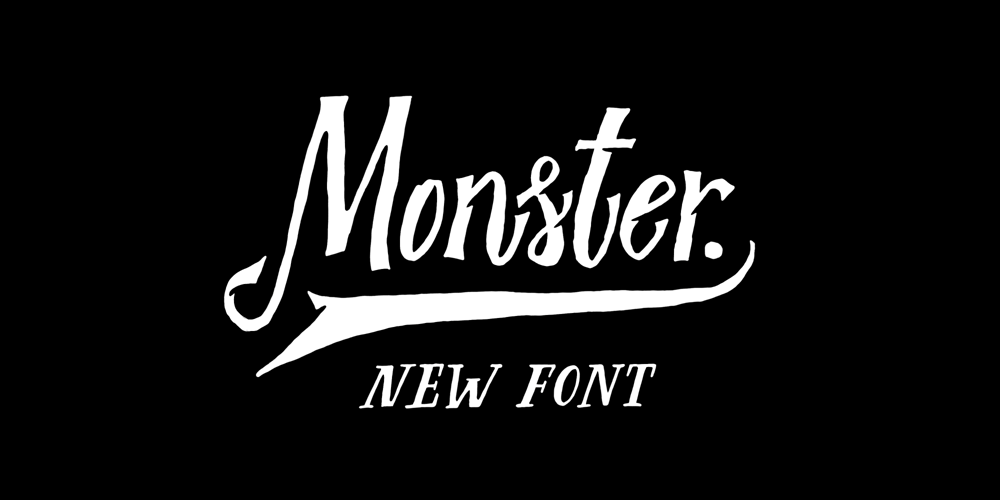
Monster DD Font Family was designed by Alexey Potapov and published by Doffdog. Monster DD contains 1 styles and family package options. Monster DD is a decorative vintage font in modern performance. It is perfect for: Logos Posters Labels Headlines Apparel Tattoo & more Monster DD comes with upper and lowercase characters, numbers, marks and punctuation.Multilingual supportEnjoy!